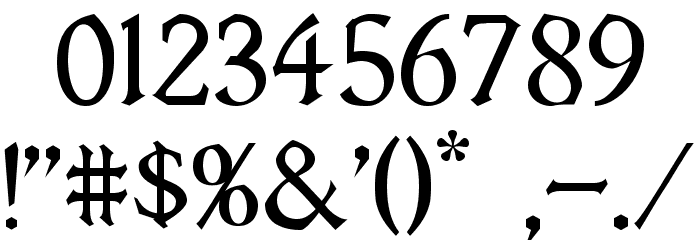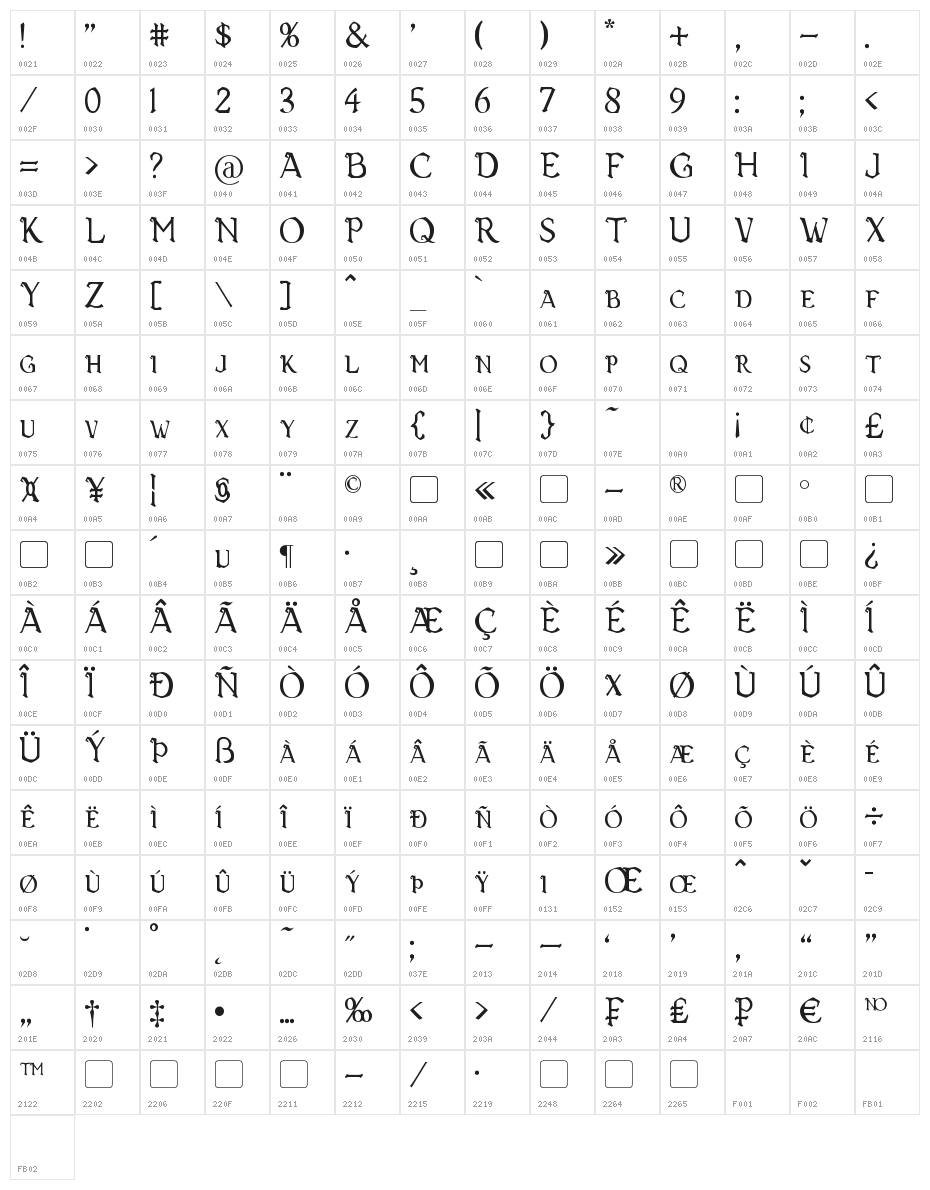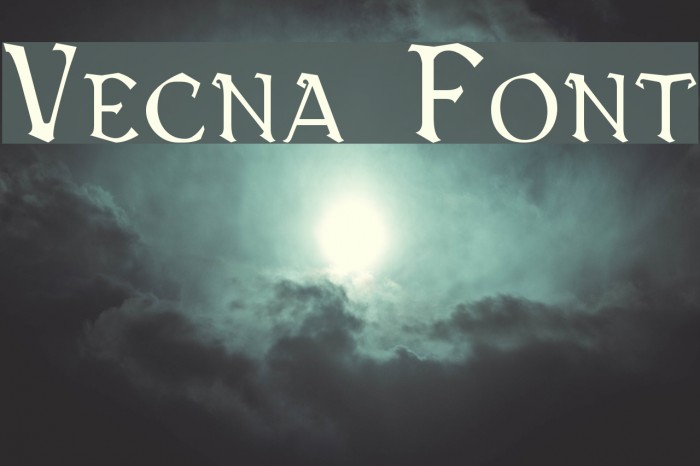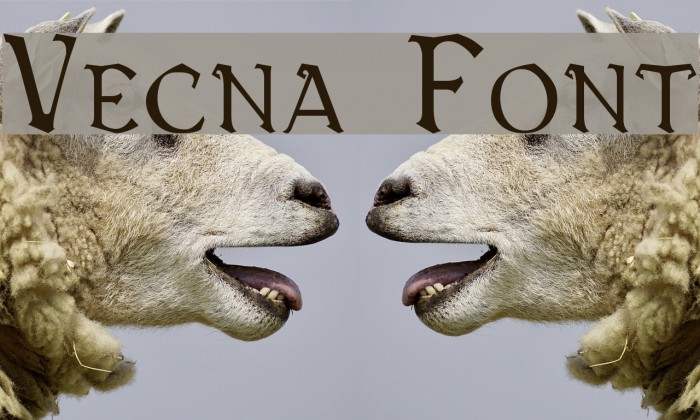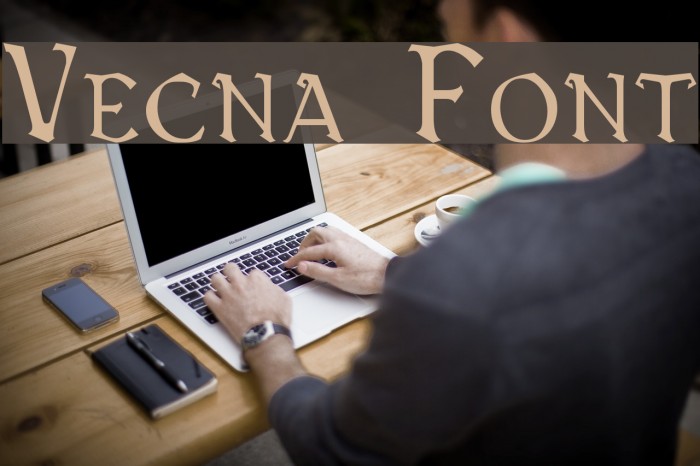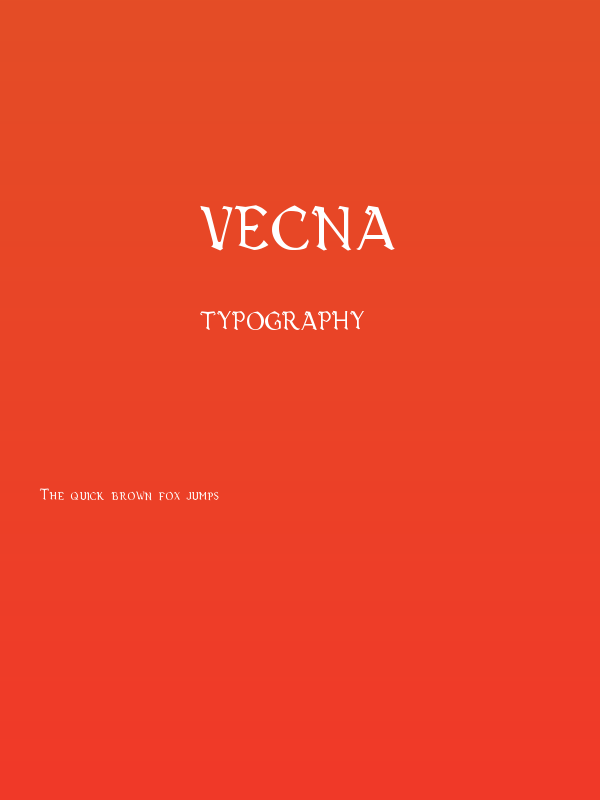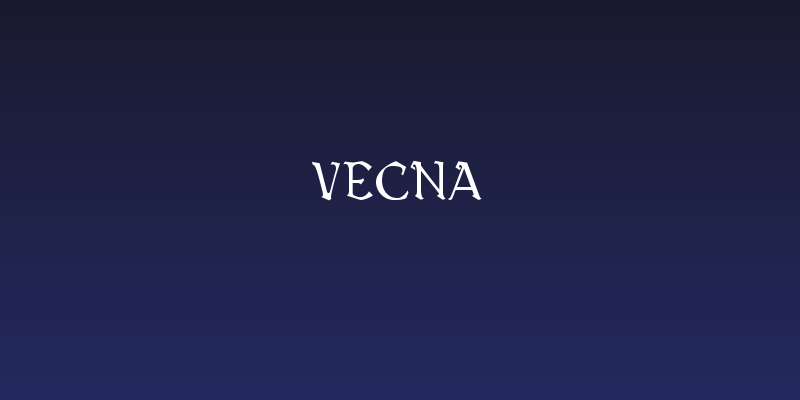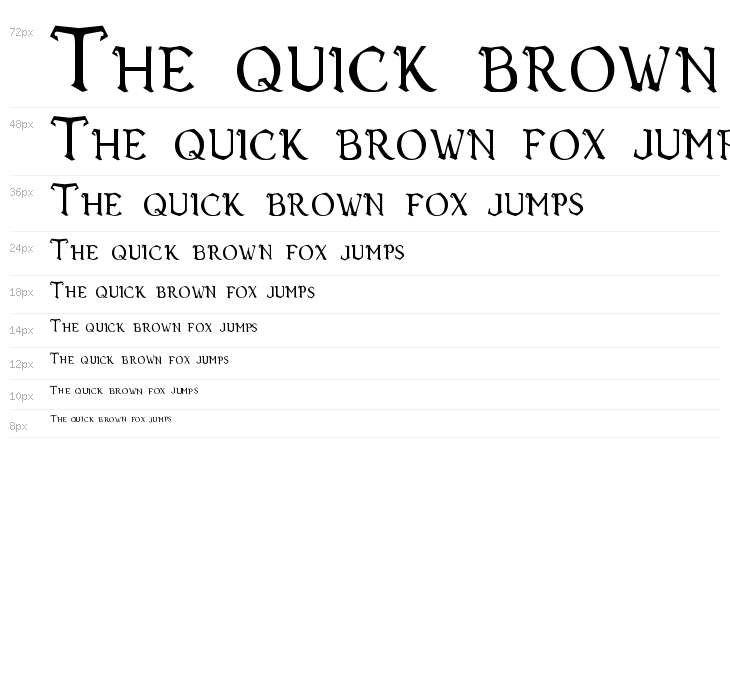
Vecna Font
Vecna Description
This font features a distinct, sharp, and angular design reminiscent of medieval or fantasy themes. The characters have a unique flair, with pointed serifs and a slightly gothic appearance. The uppercase letters exhibit a strong presence, while the lowercase letters maintain a consistent style that complements the uppercase. The numerals are bold and clear, making them easily readable. Special characters are crafted with the same attention to detail, ensuring a cohesive look across all glyphs. This font is perfect for projects that require a touch of elegance and historical charm.
| Proposed Projects | Ideal for fantasy book covers, historical themed posters, or video game graphics. |